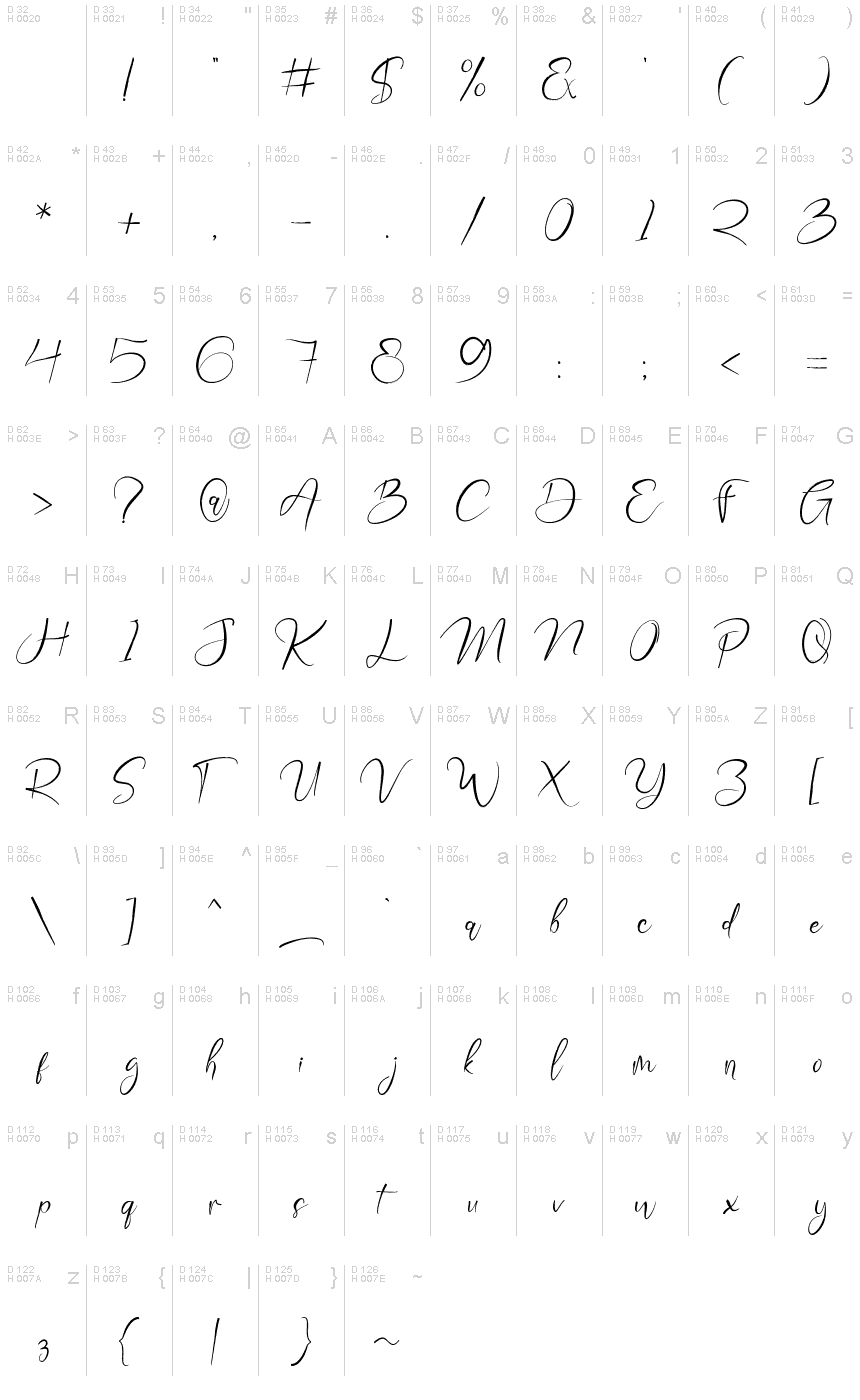
New Smashter
New Smashter, designed by Winarko, is the perfect handwritten font for any project that needs a touch of creativity and personality. With its light weight, this font is ideal for delicate designs such as wedding invitations or greeting cards. New Smashter's playful curves and fluid lines make it suitable for anything from branding to packaging design. Whether you're creating a logo for a new business or designing a website, this semi-bold font will add character and charm to your project. So why settle for boring fonts when you can use New Smashter to elevate your design?